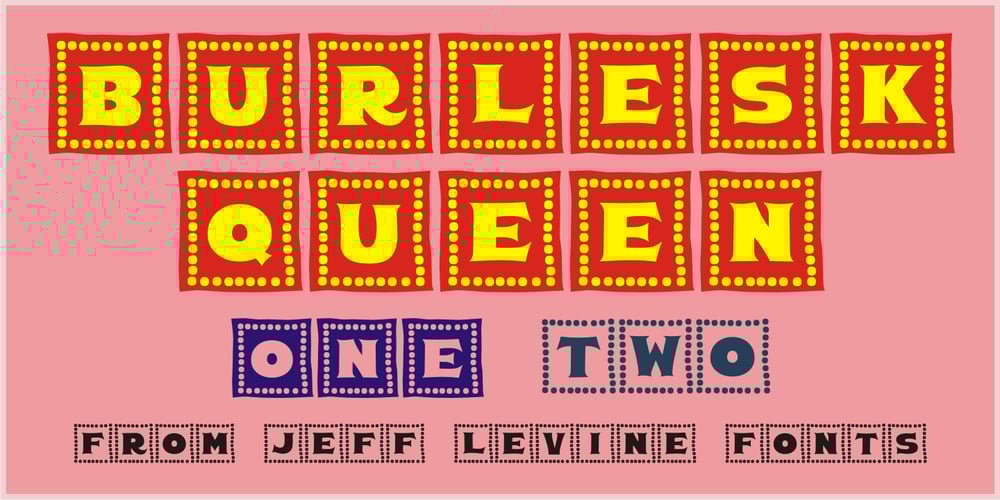
Burlesk Queen JNL
Burlesk Queen JNL font
Burlesk Queen JNL Font Family was designed by Jeff Levine and published by Jeff Levine. Burlesk Queen JNL contains 2 styles and family package options. Burlesk Queen JNL was inspired by the hand lettered title “Gypsy” on the sheet music for “Everything’s Coming Up Roses” from the movie musical based on the autobiography of famed stripper Gypsy Rose Lee. With just four basic letters to work with [G,Y,P and S], a full character set was drawn from scratch. The design features bold spur serif characters on individual ‘marquees’ bordered with lights. Burlesk Queen One JNL is the original version with white characters on black panels, while Burlesk Queen Two JNL has those panels stripped away to provide black letters on a white background.